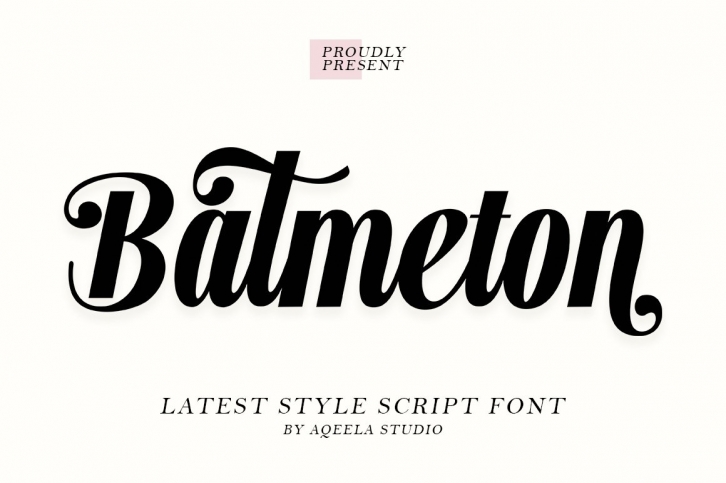
Batmeton is a great font that was designed by Aqeela Studio. Imagine the amount of combinations you can create using this font! The archive is 19.23 MB and it was released on March 11, 2022. Batmeton looks beautiful on wedding invitations, greeting cards, logos, posters, labels, t-shirt designs, logos, business cards and is perfect for use in ink or watercolor works, fashion, magazines, packaging and food menus, children's books and more!